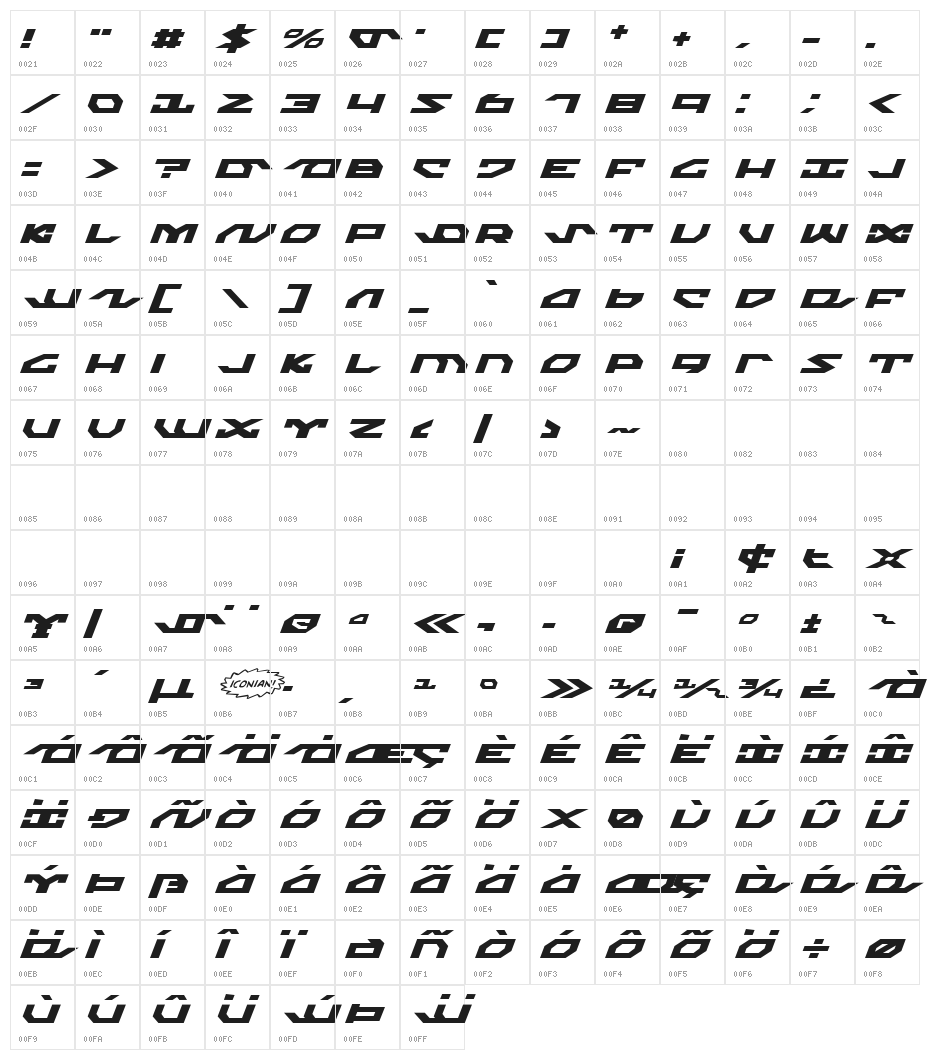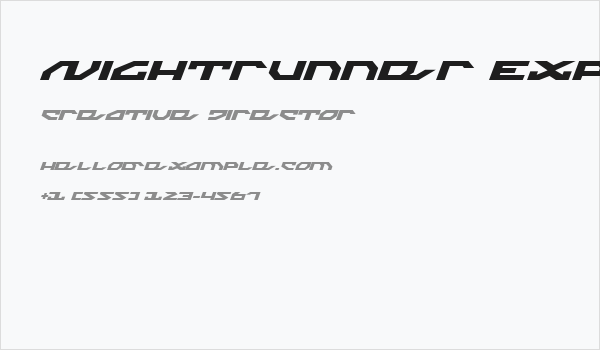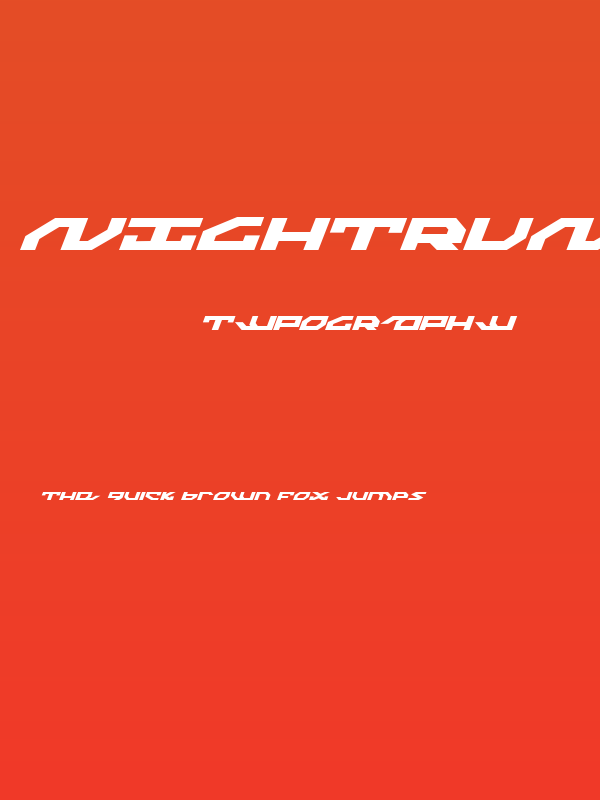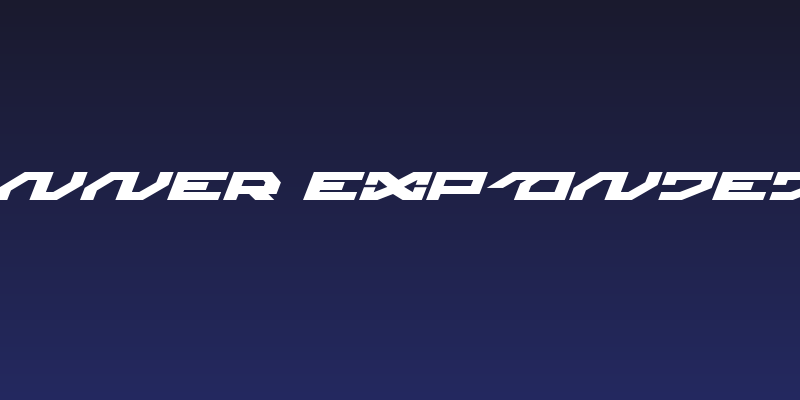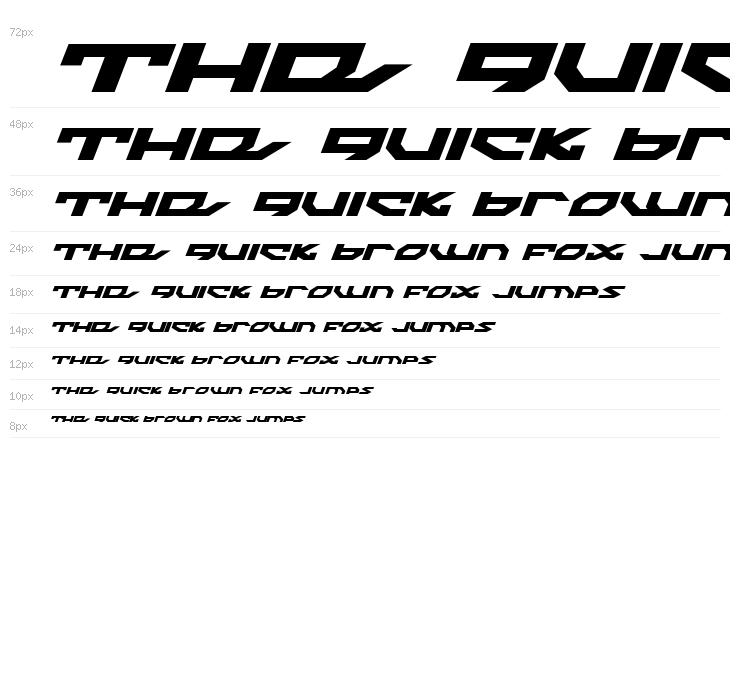
Nightrunner Expanded Italic Font
Nightrunner Expanded Italic Description
This font features a futuristic and dynamic design, characterized by sharp angles and a slanted, italicized style. The characters are bold and striking, with a geometric structure that gives them a modern and edgy appearance. The uppercase and lowercase letters maintain a consistent style, with angular cuts and a forward-leaning posture that suggests motion and speed. The numbers and special characters follow the same design principles, ensuring a cohesive look across all elements. This font is ideal for projects that require a bold, modern aesthetic with a touch of futurism.
| Overall Style | Futuristic, Modern |
| Proposed Projects | Ideal for sci-fi themed designs, video game titles, tech branding, and dynamic posters. |